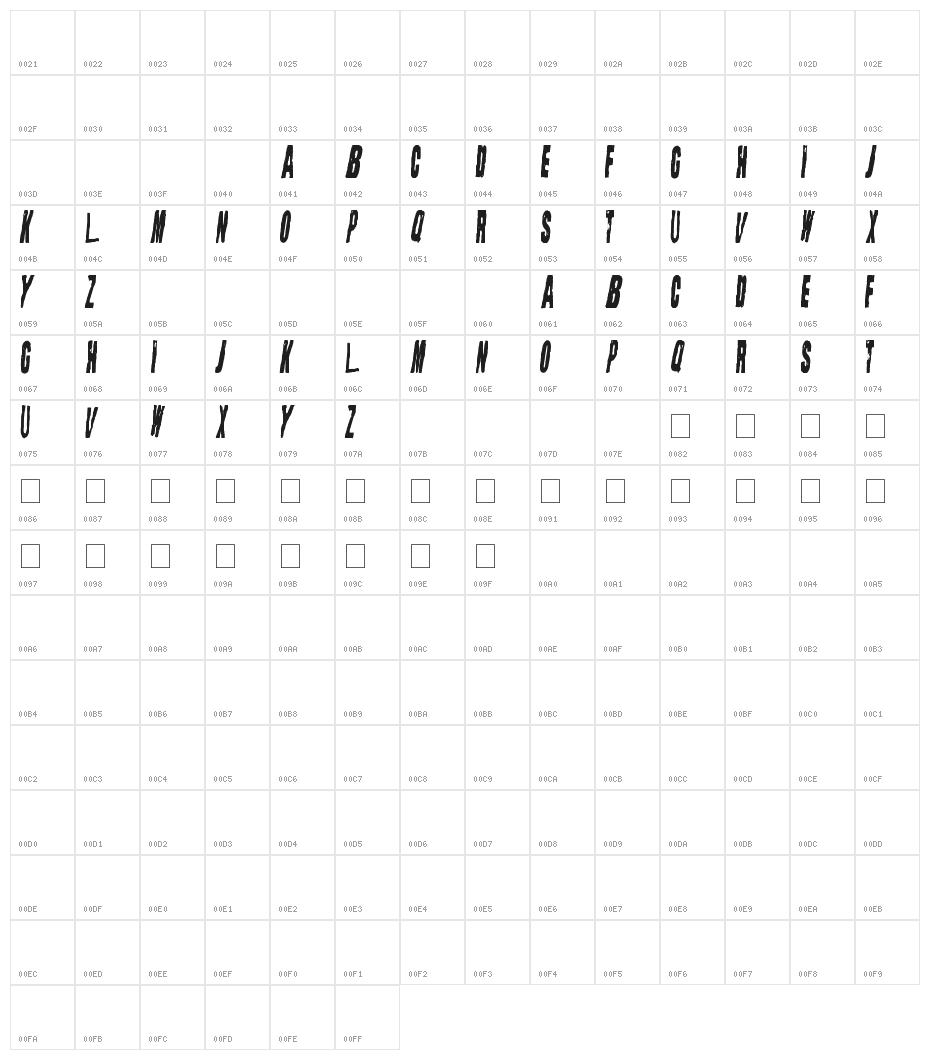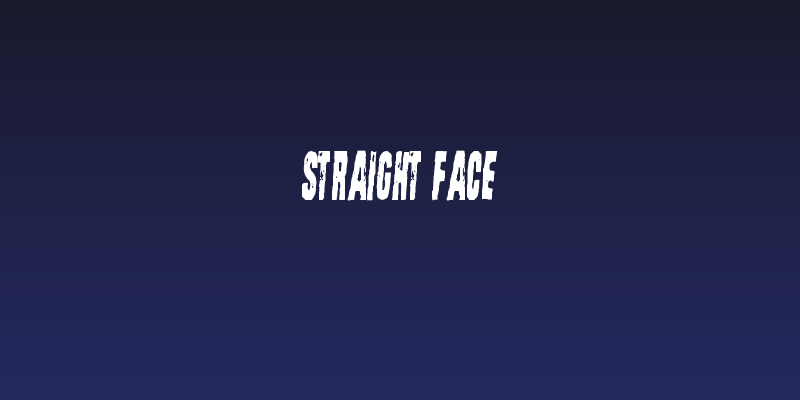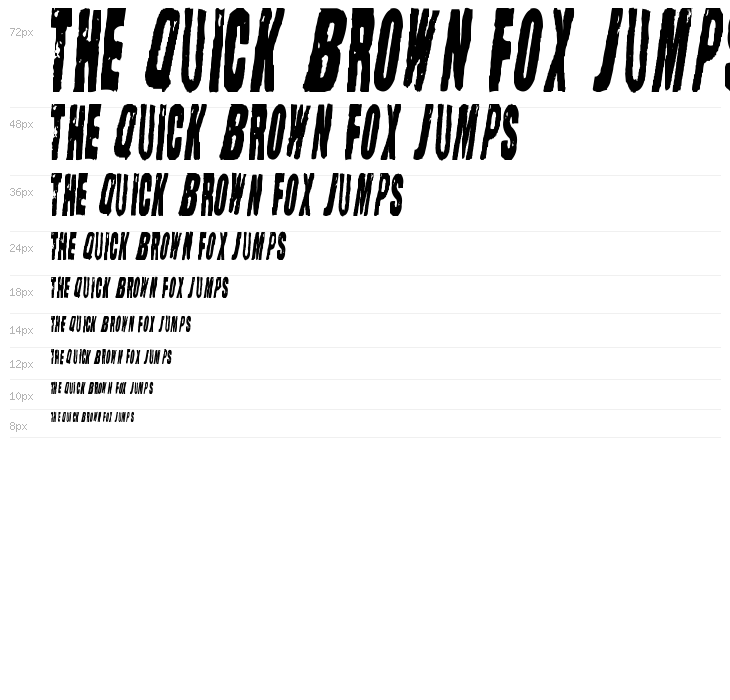
Straight Face Font
Straight Face Description
This font features a bold and distressed style, characterized by its rough, textured appearance. The letters are uppercase, with a slightly condensed form, giving them a compact and impactful look. The irregular edges and varying stroke thicknesses create a dynamic and edgy feel, making it suitable for designs that require a gritty or rebellious aesthetic. The font's unique style is reminiscent of hand-painted or stenciled lettering, adding a touch of authenticity and rawness to any project. Its bold presence ensures that it stands out, making it ideal for attention-grabbing headlines or titles.
| Width | Condensed |
| Proposed Projects | Ideal for posters, album covers, streetwear branding, or any project needing a bold, edgy look. |